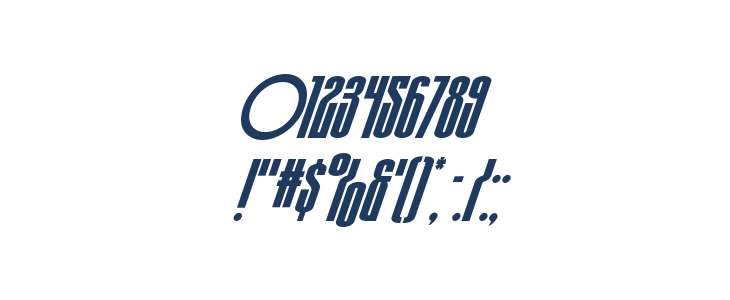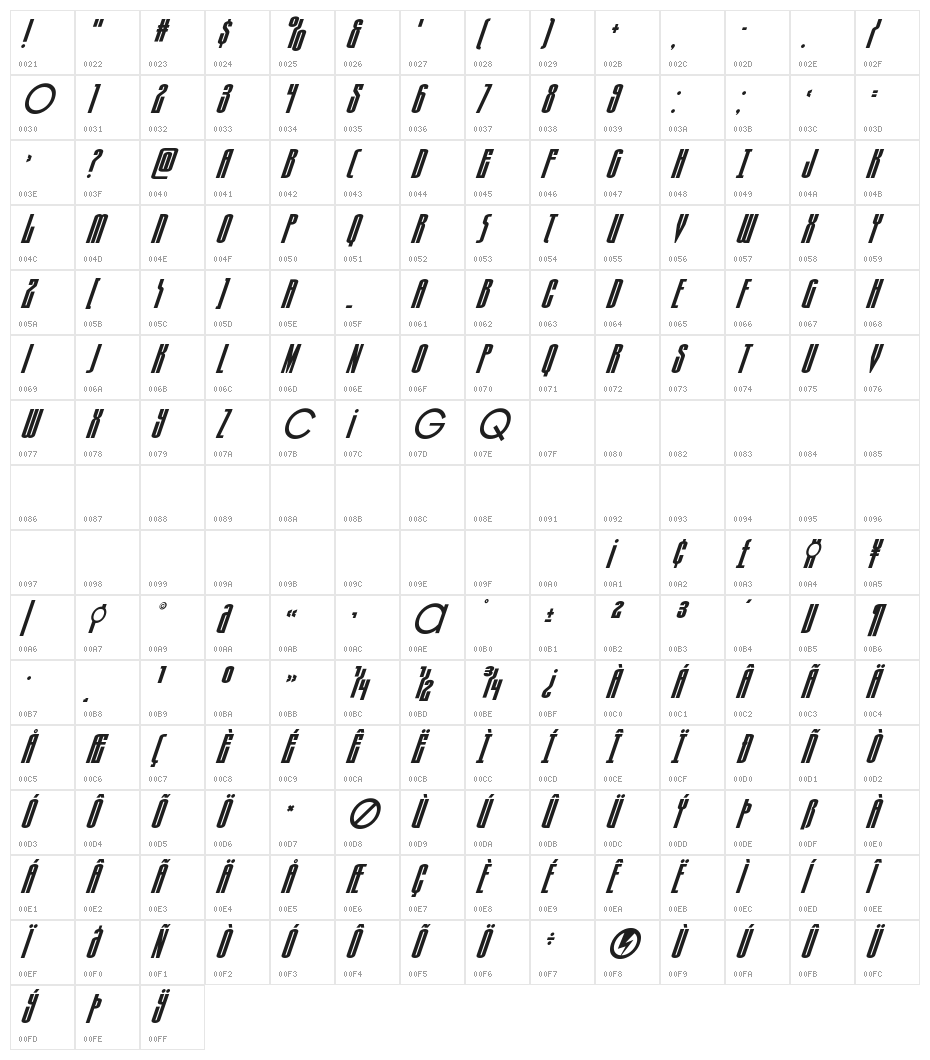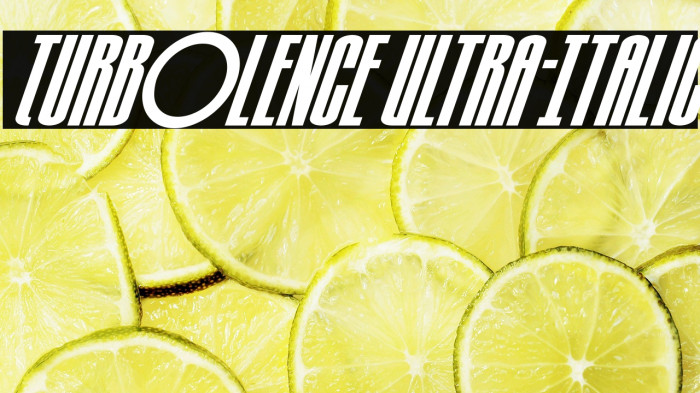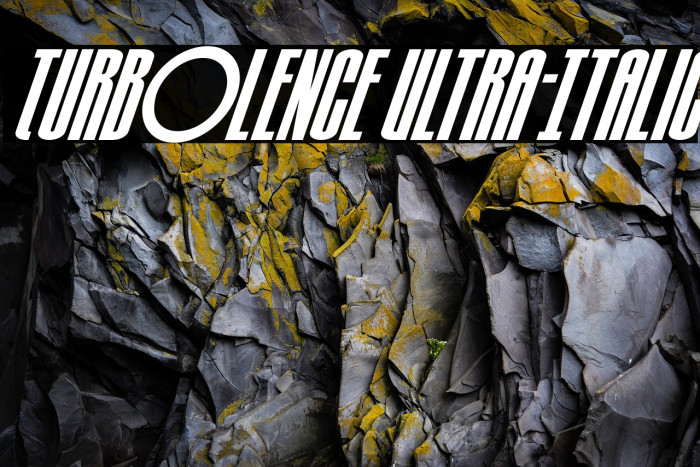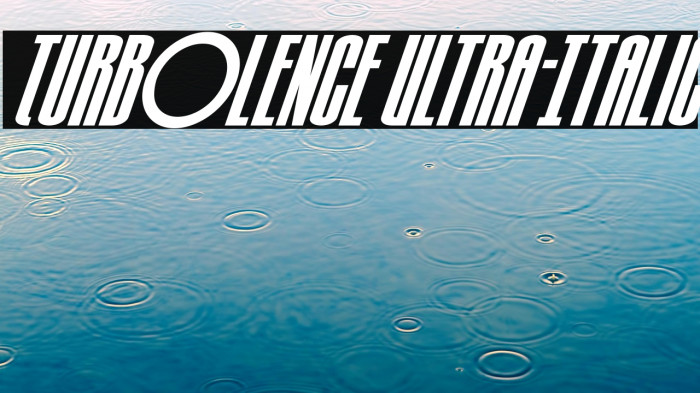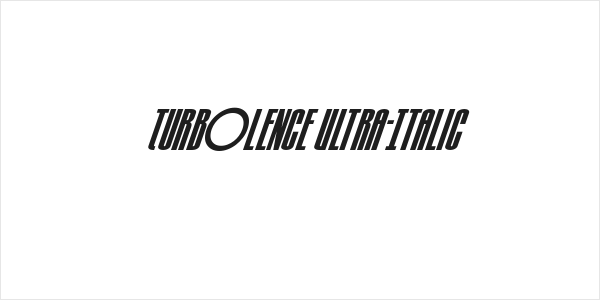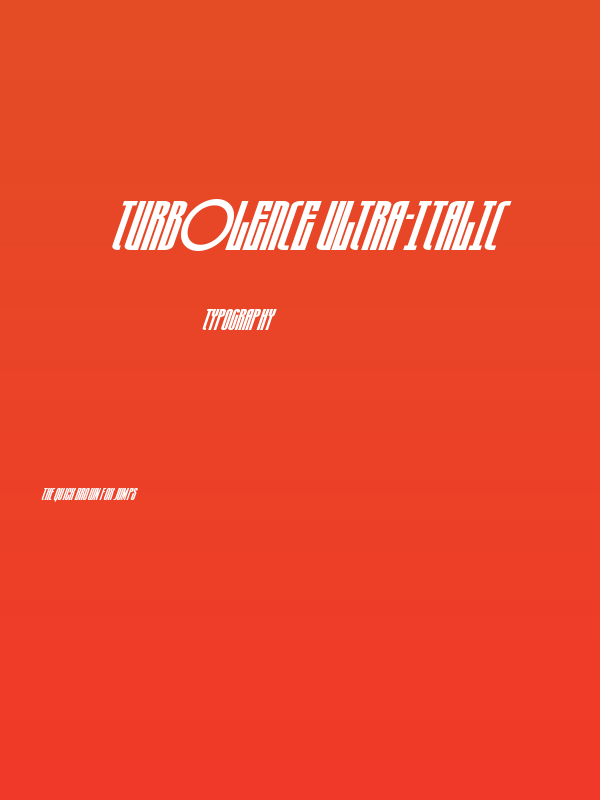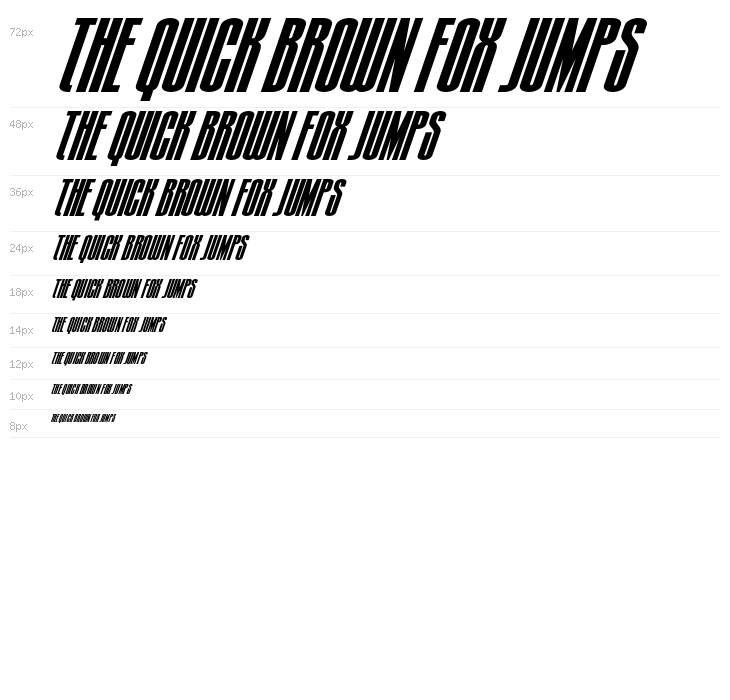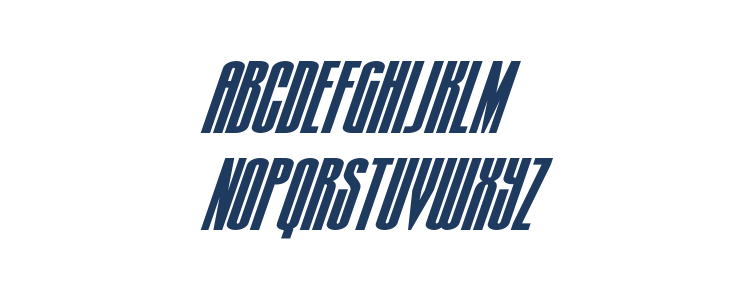
Turb0lence Ultra-Italic Font
Turb0lence Ultra-Italic Description
This font features a bold and dynamic design with a strong italic slant, giving it a sense of motion and energy. The characters are elongated and condensed, creating a sleek and modern appearance. The strokes are thick and consistent, providing a high contrast that enhances readability while maintaining a stylish look. The font's unique style makes it suitable for projects that require a bold statement or a futuristic touch.
Proposed ProjectsIdeal for sports branding, automotive advertisements, dynamic posters, and futuristic designs.